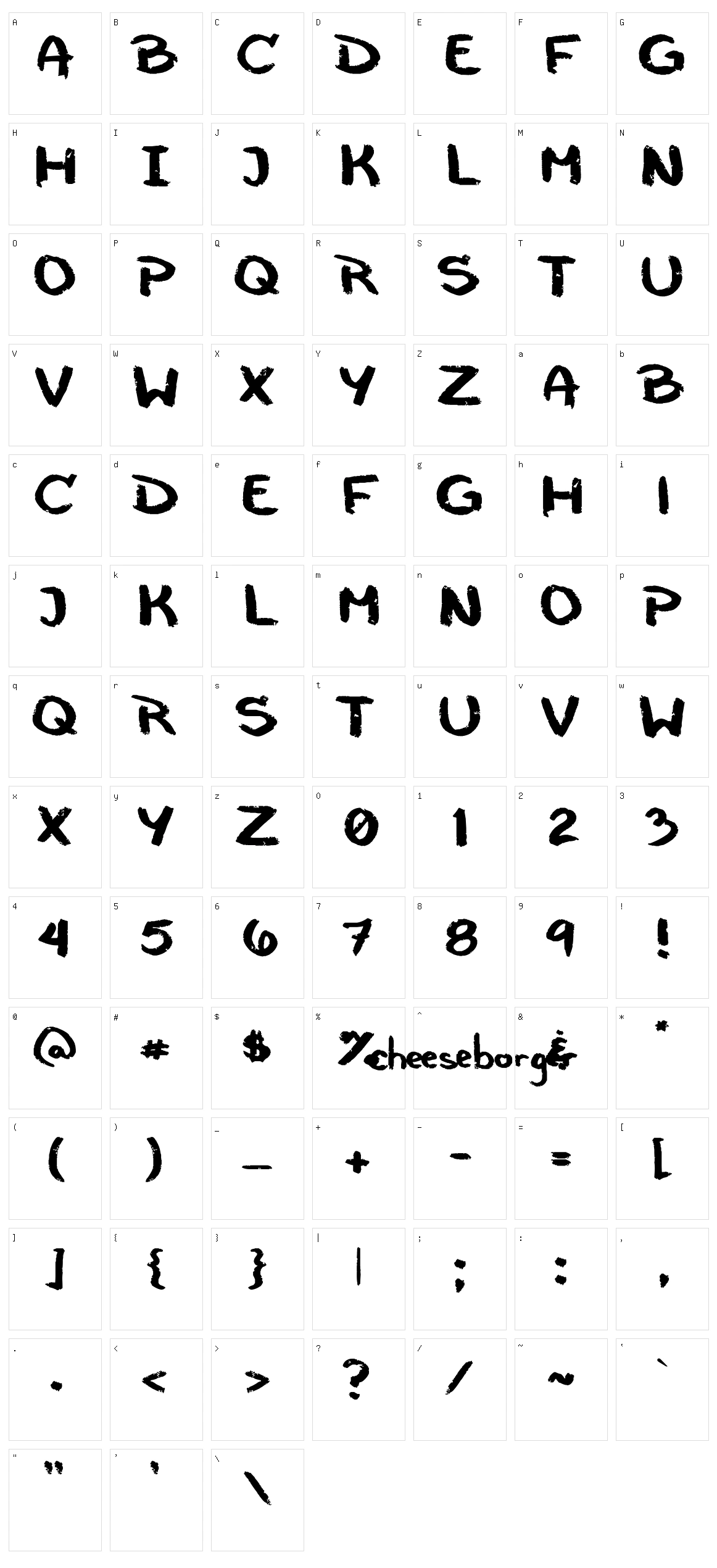
The free font Cheeseborger is carefully designed by C. B., showcasing a thoughtful balance of creativity and usability and falls under the Trash font style. When you download the ZIP file, it contains only 49.46 KB of font files, making it lightweight and quick to download. Please review the license details below to understand permitted usage and distribution rights. If license information is not available, we recommend using this font for personal projects only or contacting the author directly for commercial usage permissions.